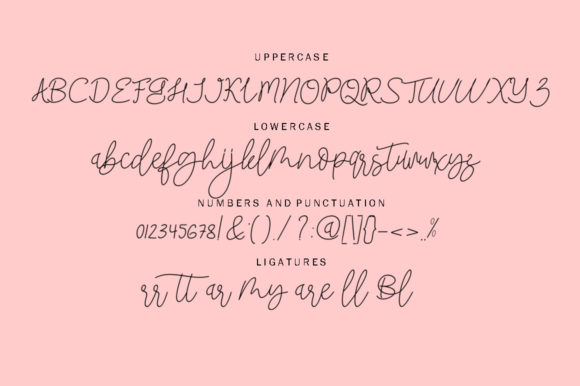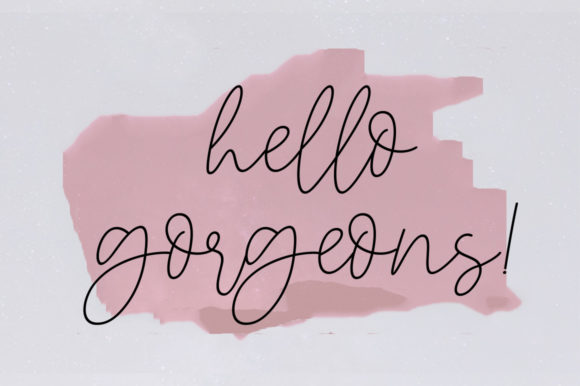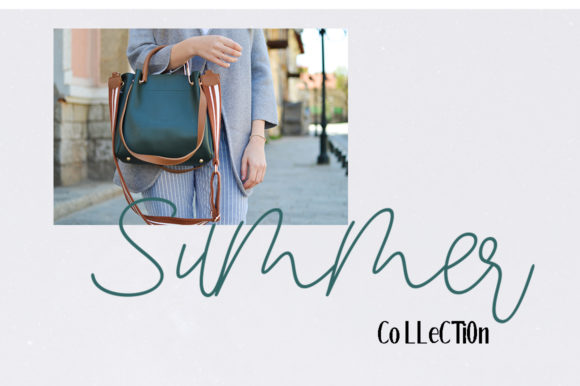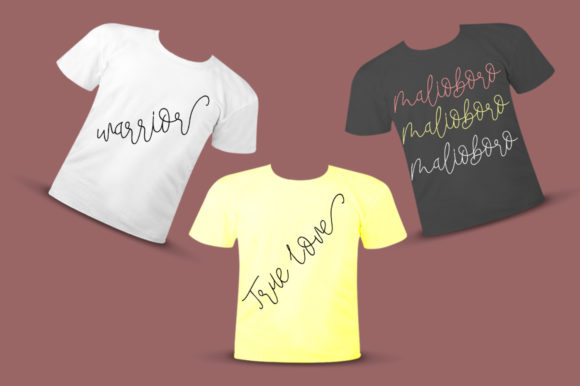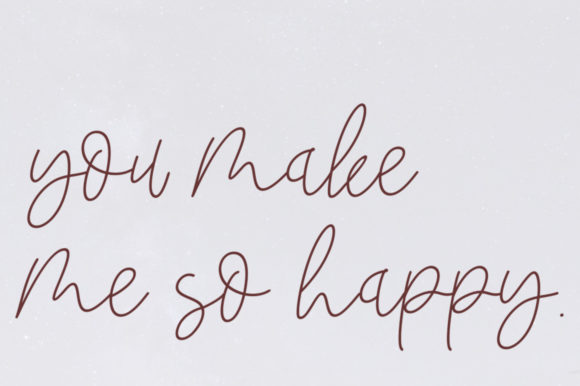
The Moment That Changed Your Design
There’s something magical about seeing your design come to life, isn’t it? The moment when all the elements fall into place, and your vision takes shape. For designers, this moment is what drives us to keep pushing the boundaries of creativity. But, we all know that achieving this moment can be a challenge, especially when it comes to typography.
That’s where the Blackstore Signature Font comes in – a gorgeous script designed to make a statement. Available in three distinct versions – True, Capital, and Regular – this font is a game-changer for designers. By combining them, you can achieve outstanding results in an instant, elevating your designs to the next level.
Blackstore Signature Font Key Features
- Font Family: Blackstore Signature Font is a unique, high-end font designed for luxury brands and high-end designs.
- Unique Characteristics: The font features a distinctive, modern design with a high level of sophistication, making it ideal for luxury brands and high-end designs.
Designer Review: Blackstore Signature Font
Overall, I’d say the Blackstore Signature Font is a solid choice for anyone looking for a modern, sleek font to elevate their brand. Here’s what works well: ✨
- Unique character set: The font’s unique character set gives it a distinct personality that can help your brand stand out.
- Excellent legibility: Even at smaller font sizes, the Blackstore Signature Font remains highly legible, making it perfect for body text.
- Consistent design: The font’s consistent design language ensures a cohesive look across different text sizes and weights.
- Limited language support: The font may not support certain languages or character sets, which could be a problem for global brands.
- No italic or oblique styles: While the font’s bold and light weights are useful, the lack of italic or oblique styles may limit its versatility.
Overall, I’d give the Blackstore Signature Font 4 out of 5 stars. It’s a great choice for brands looking for a modern, sleek font, but its limitations may not make it suitable for everyone. With some additional support for languages and italic/oblique styles, this font could be a true standout in the world of typography.
Use the Blackstore Signature Font in conjunction with bold or italic text for added emphasis.
Use the font in combination with other design elements, such as images and graphics, to create a cohesive look.
Use the Blackstore Signature Font for branding and logos, such as business cards and letterheads.
Apply the font to packaging and product labels for a unique and recognizable brand identity.
Use the font in advertising and marketing materials, such as brochures and flyers, to create a consistent look and feel.
Alternatives to Blackstore Signature Font
Montserrat is a modern sans-serif font that is highly legible and versatile. It’s perfect for use in digital products, packaging, and advertising. Montserrat is a great alternative to Blackstore Signature Font as it has a similar clean and minimalist aesthetic, but with a more geometric feel.
Inter is a modern sans-serif font that is designed to be highly legible and versatile. It’s a great choice for digital products, including websites and apps. Inter is similar to Blackstore Signature Font in its clean and minimalist aesthetic, but with a more rounded feel.
Lato is a modern sans-serif font that is highly legible and versatile. It’s perfect for use in digital products, including websites and apps. Lato is a great alternative to Blackstore Signature Font as it has a similar clean and minimalist aesthetic, but with a more elegant feel.